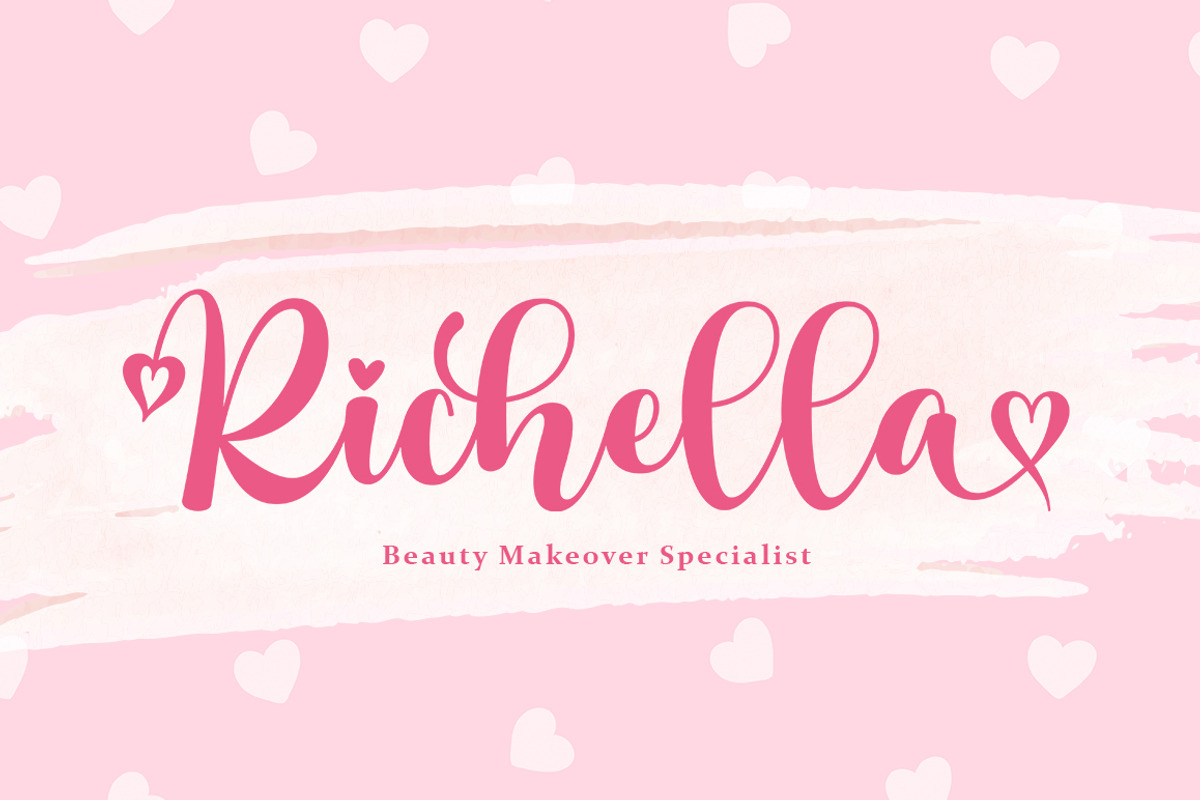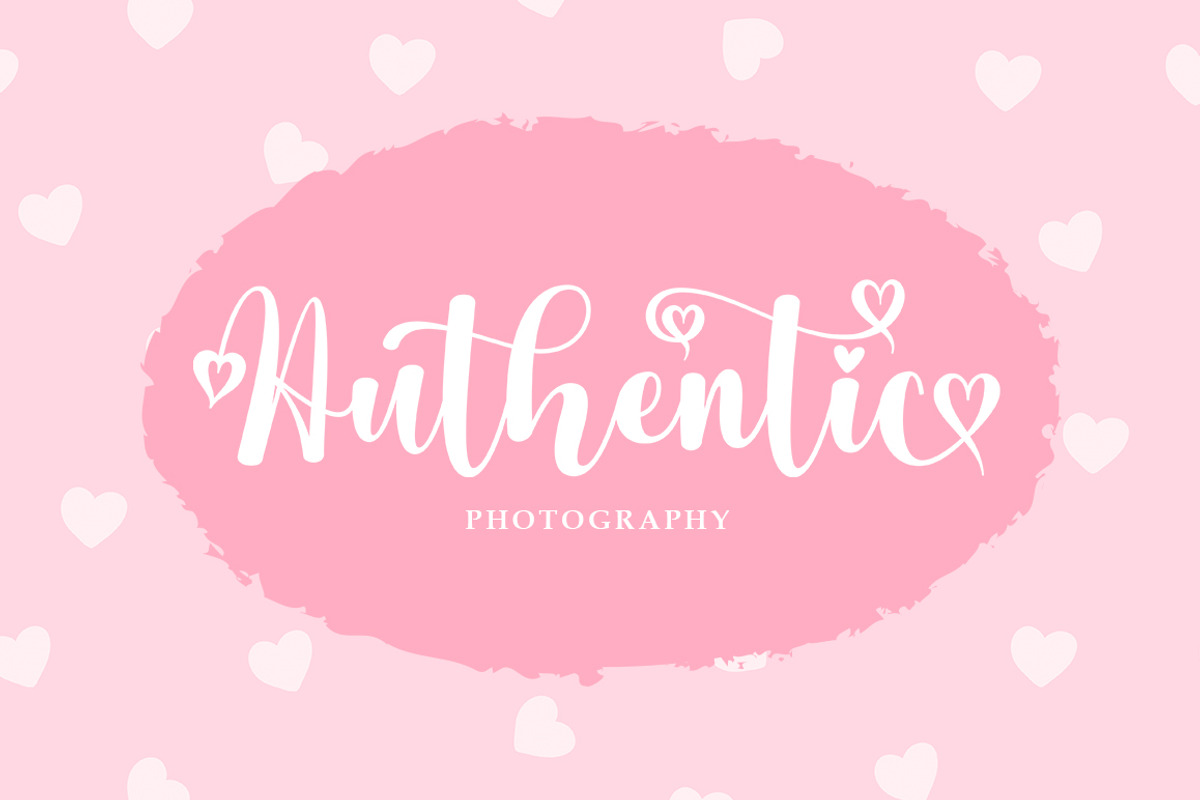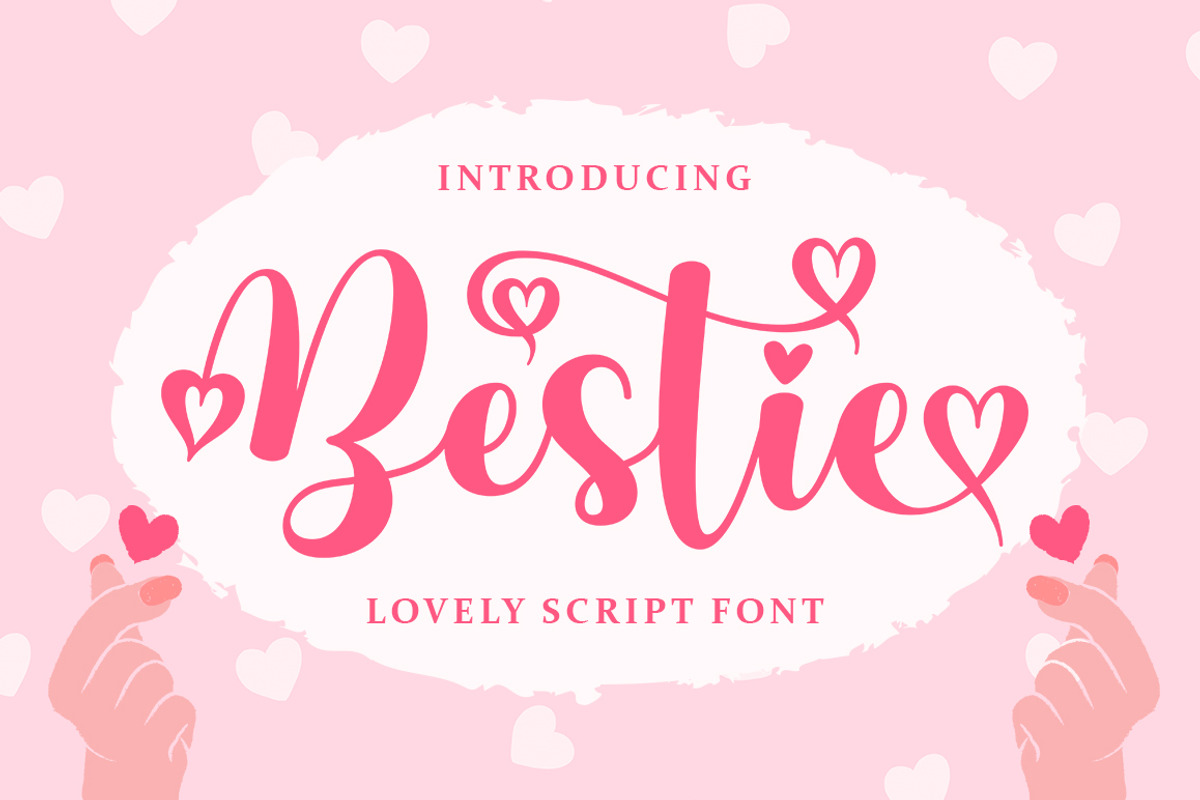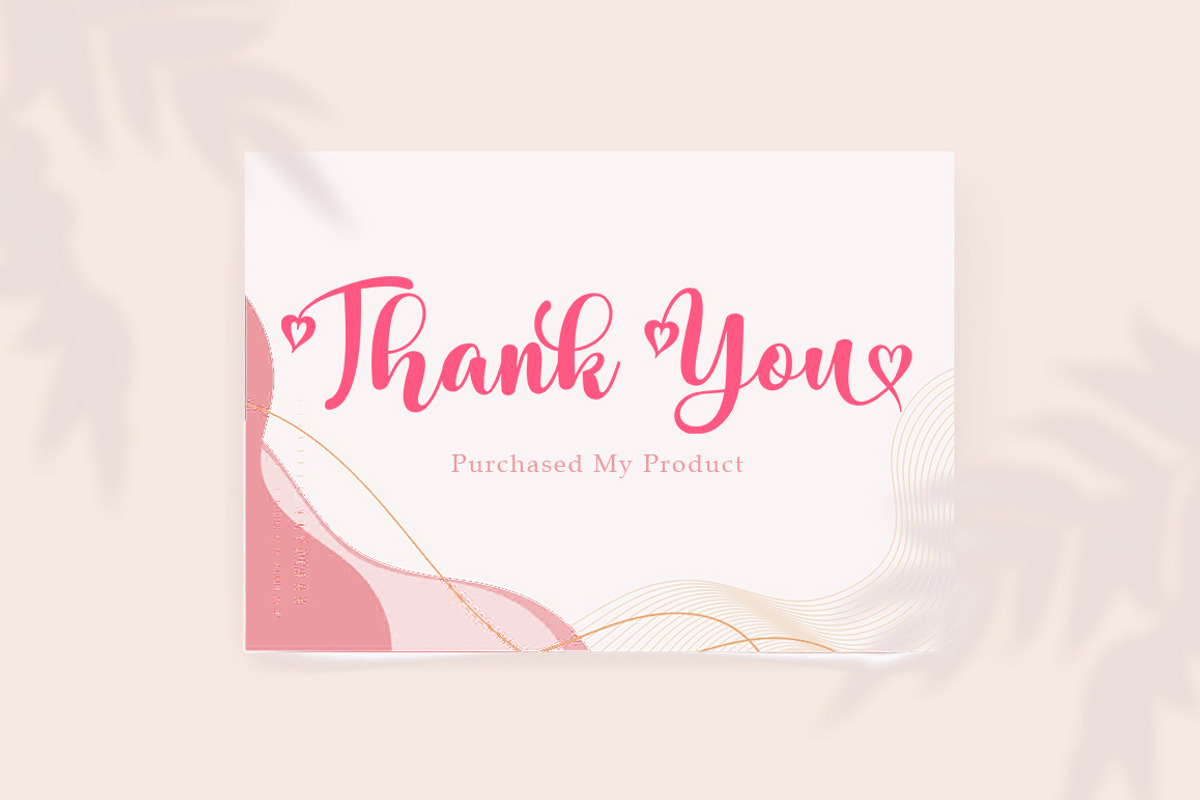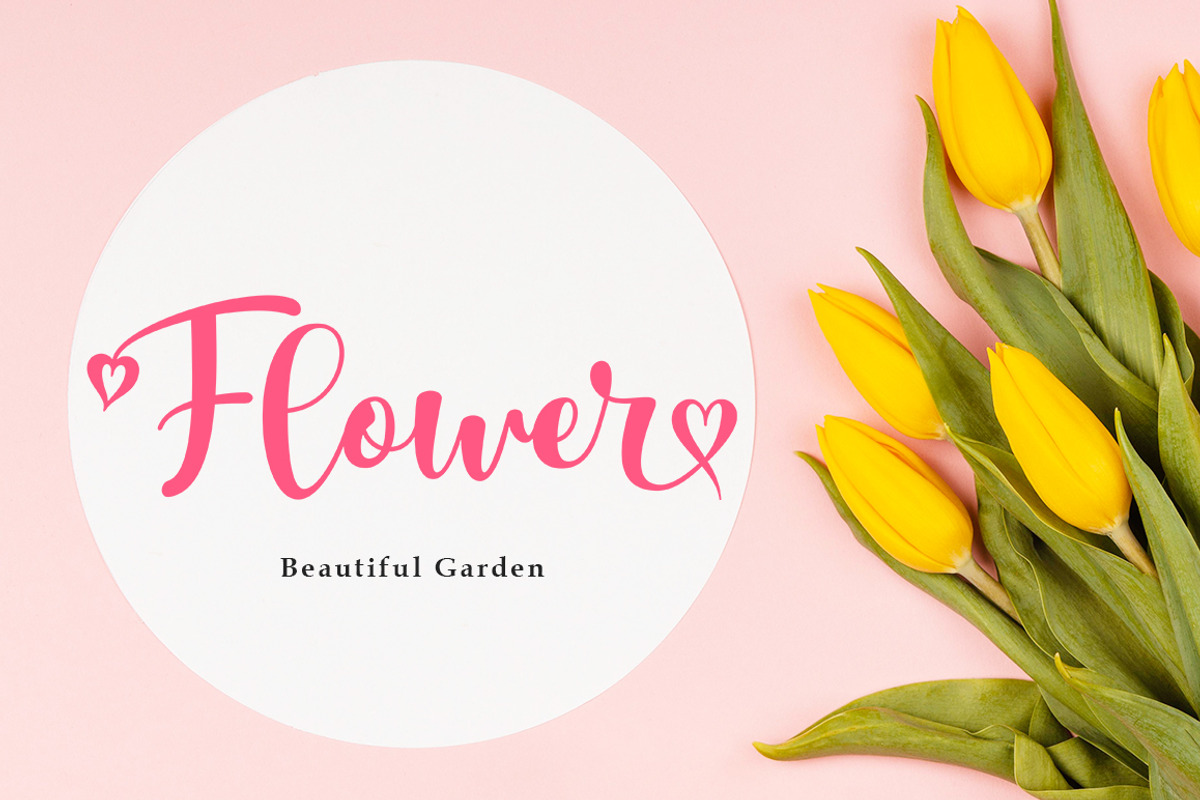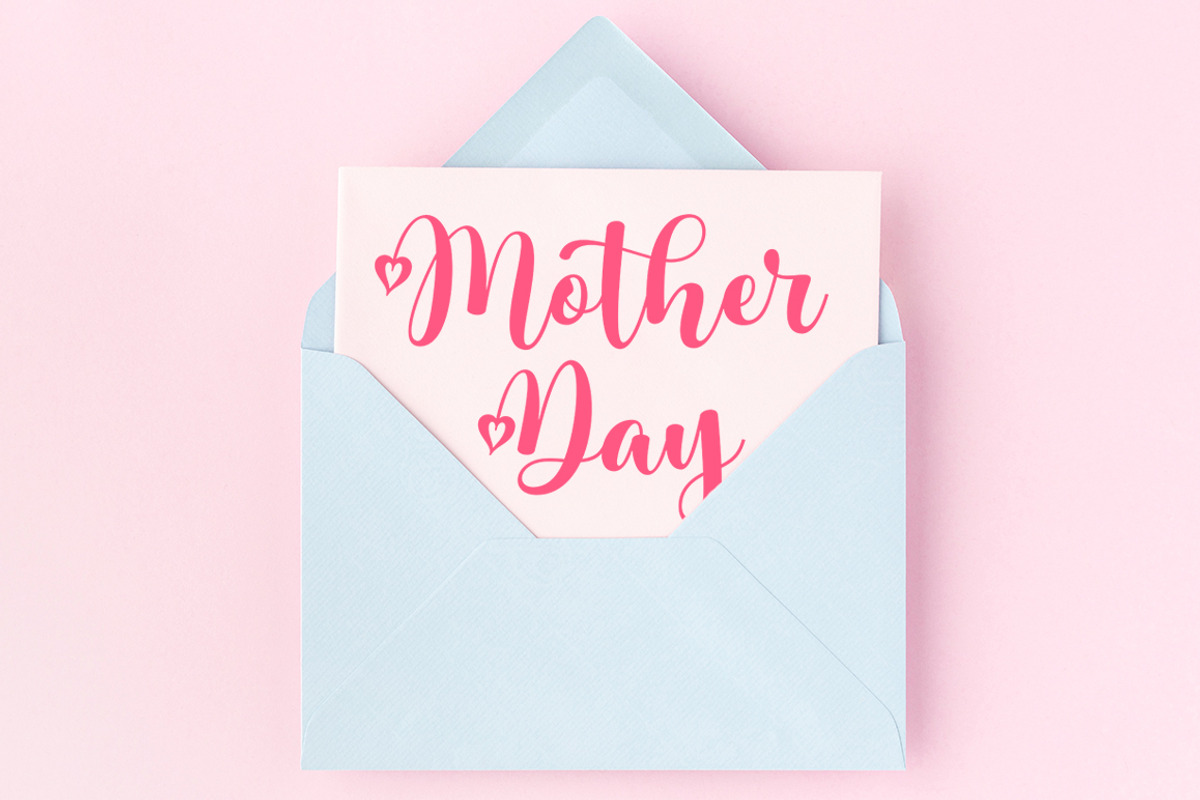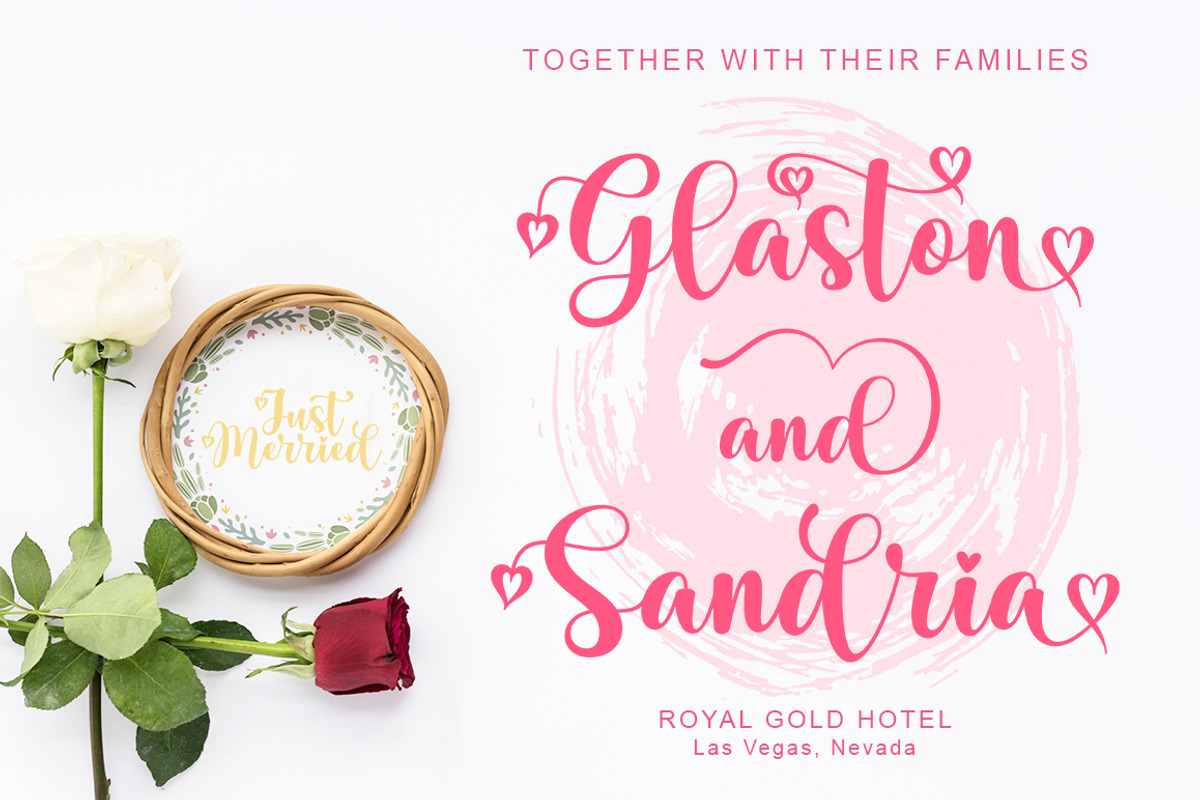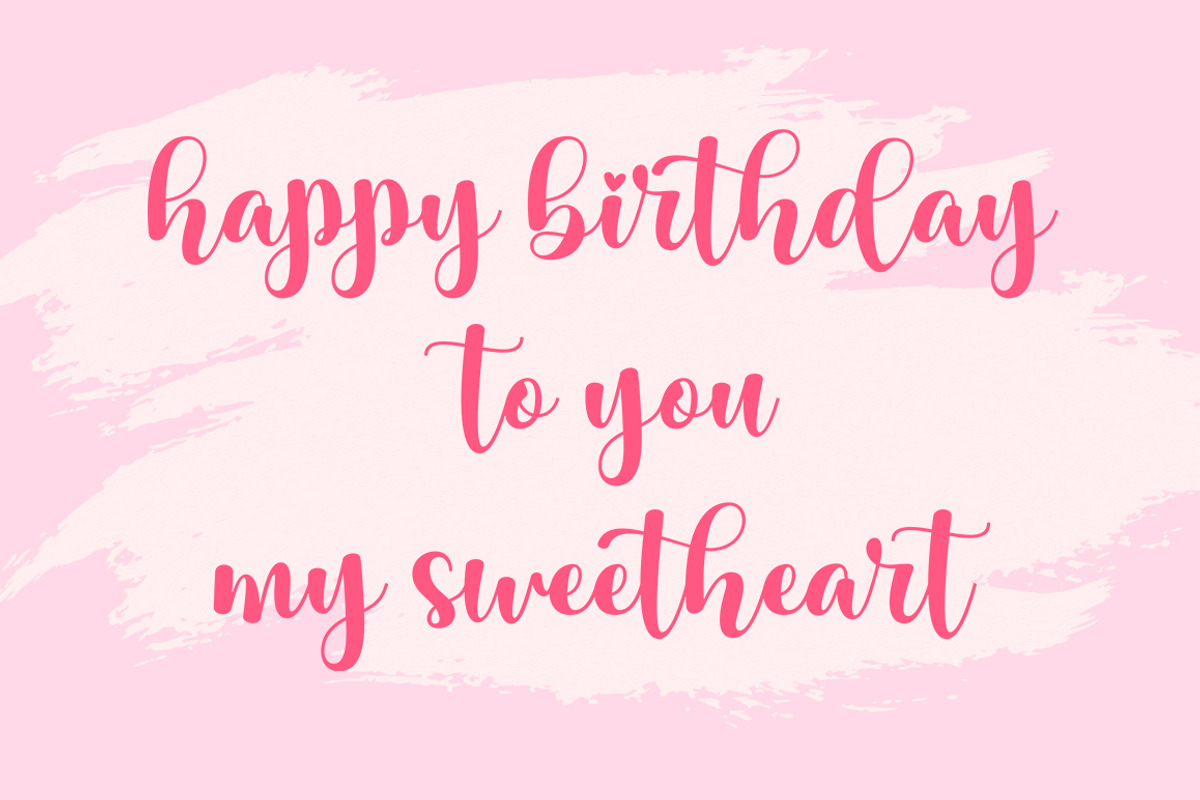
Bestie
Bestie is modern, bouncy, and sweet calligraphy font. It has tons of lowercase extra glyphs, to give you many options in designing.
Bestie is perfect font for any projects, such as wedding invitation, Christmas design, branding, logo, lettering, crafting, sticker, sublimation, and many more.
+Tons of PUA-Encoded extra glyphs, which means can be accessed easily.
+Multilingual glyphs.